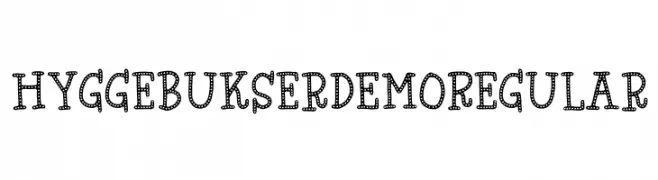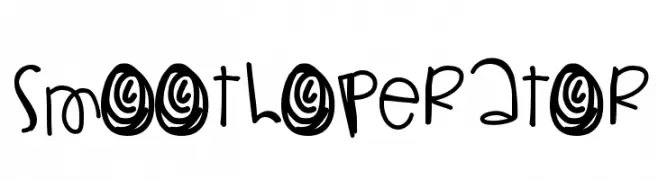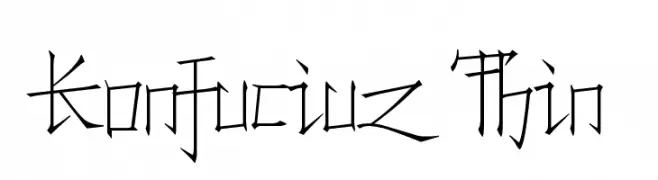
( Fonts by Mans Greback - www.mawns.com )
A bold, expressive script font with dramatic flourishes and interconnected characters.
( Fonts by Utopiafonts )
A distressed, fragmented font with a grunge and edgy style.
A sleek, futuristic font with geometric structure and rounded edges.
A playful, dotted outline font with a whimsical and handcrafted feel.
( Fonts by Des Gomez )
A playful, handwritten font with a whimsical and informal style.
A futuristic, geometric font with strong horizontal lines and angular shapes.
A thin, angular font with sharp edges and a geometric, modern design.